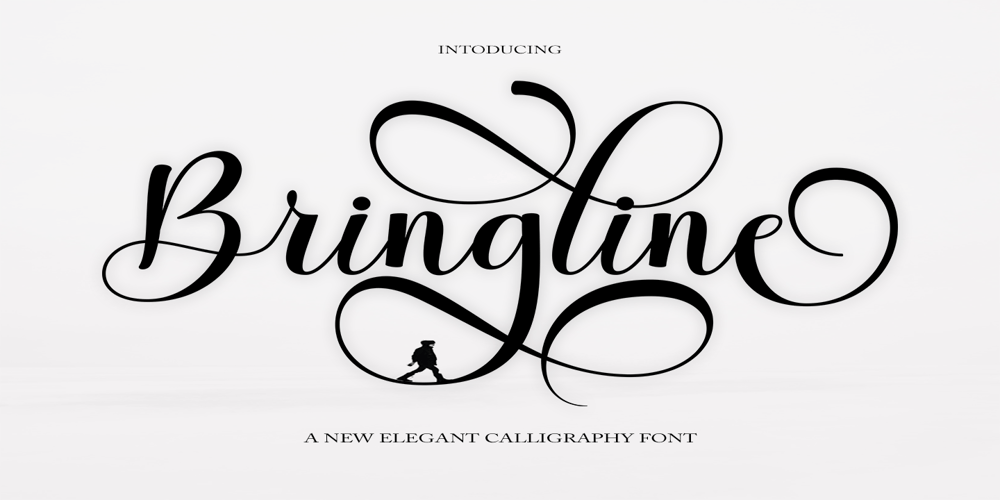
Bringline Script Font Family was designed by Has Rizal and published by Hrz Studio. Bringline Script contains 1 styles and family package options. Bringline Script is a calligraphic script font that comes with beautiful alternate characters. copper plate calligraphy mix with hand lettering style. Designed to convey stylish elegance. Bringline Script is attractive because it is subtle, clean, feminine, sensual, glamorous, simple and very easy to read. The classic style is very suitable to be applied in all types of formal work such as invitations, labels, menus, logos, fashion, make up, stationery, letterpress, romantic novels, magazines, books, greeting/wedding cards, packaging, labels. Bringline Script features a glyph and alternate characters. including multiple language support. It features OpenType with styling, binding, and character strokes, allowing you to mix and match letter pairs to match your design. Files include:To enable the OpenType Stylistic alternative, you need a program that supports OpenType features such as Adobe Illustrator CS, Adobe Indesign & CorelDraw X6-X7, Microsoft Word 2010 or a later version. (Windows), Font Book (Mac) or a software program such as PopChar (for Windows and Mac).How to access all alternative characters using Adobe Illustrator: https://www.youtube.com/watch?v=XzwjMkbB-wQHow to use the font style set in Microsoft Word 2010 or later: https://www.youtube.com/watch?v=NVJlZQ3EZU0There are additional ways to access the alternative/swash, using Character Maps (Windows), Nexus Fonts (Windows) Font Book (Mac) or a software program such as PopChar (for Windows and Mac).How to access all alternative characters, using the Windows Character Map with Photoshop: https://www.youtube.com/watch?v=Go9vacoYmBwIf you need help or advice, please contact me.Thank you for your purchase!